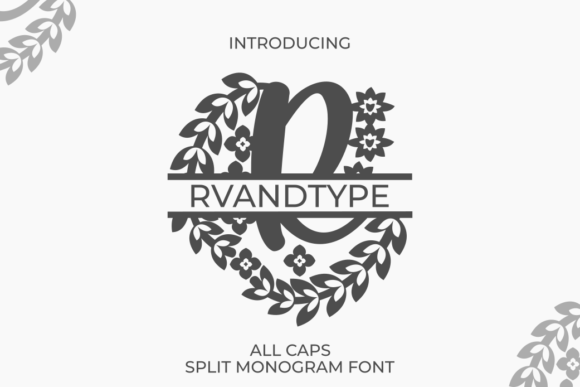
Elevate Your Designs with the Elegance of All Caps Split Monogram Font
In the world of crafting and design, the right typography can make all the difference. It’s not just about conveying a message; it’s about doing so with style and personality. This is where the All Caps Split Monogram Font comes into play. A stylish decorative font, it is perfect for crafters and designers looking to add a touch of elegance and sophistication to their projects. Whether you’re printing on shirts, creating invites, designing cards, making gift cards, or crafting gift tags, this font is sure to enhance your designs with its authentic and realistic feel.
What is All Caps Split Monogram Font?
The All Caps Split Monogram Font is a unique typeface designed specifically for decorative purposes. As the name suggests, it’s characterized by its split monogram style, which gives it a distinctive and eye-catching appearance. This font is exclusively in all caps, ensuring that your texts or monograms stand out with a commanding presence. Its design is carefully crafted to mimic the look of professionally embroidered or stamped monograms, making it an excellent choice for craft products that aim to offer a personal touch.
Versatility in Crafting and Design
One of the key advantages of the All Caps Split Monogram Font is its versatility. It can be seamlessly integrated into a wide range of crafting and design projects. Here are some of the ways you can utilize this stylish font:
- Shirts and Apparel: Add a personalized touch to t-shirts, hoodies, and other apparel items. The font’s clear and stylish design ensures that it looks great whether you’re printing or sublimating.
- Invitations and Cards: Make your invitations, greeting cards, and thank you cards stand out with elegant monograms. It’s a great way to add a personal touch to special occasions.
- Gift Cards and Tags: Enhance your gift cards and tags with beautifully designed monograms. This not only adds a personal touch but also makes the gifts more visually appealing.
Why Choose All Caps Split Monogram Font?
There are several reasons why the All Caps Split Monogram Font stands out from the myriad of fonts available for crafters and designers:
- Authentic Look: The font boasts an authentic look that closely resembles traditional monogramming techniques. This lends a realistic and high-quality feel to your designs.
- Ease of Use: Designed with user-friendliness in mind, this font can be easily incorporated into your projects, regardless of your design experience.
- Customization: The All Caps Split Monogram Font allows for a high degree of customization. You can use it to create monograms in various sizes and colors, ensuring that they fit perfectly with your project’s theme.
- Time-Saving: With this font, you can significantly reduce the time spent on designing monograms from scratch. This allows you to focus on other creative aspects of your project.
Tips for Using All Caps Split Monogram Font
To get the most out of the All Caps Split Monogram Font, consider the following tips:
- Pair with Complementary Fonts: When using the All Caps Split Monogram Font alongside other fonts, choose ones that complement its style. Simple, sans-serif fonts often work well for contrast.
- Play with Colors: Don’t be afraid to experiment with different colors. The font’s design looks great in both metallic and solid colors, offering you plenty of creative freedom.
- Consider Size and Placement: The size and placement of your monogram can significantly impact the overall look of your design. Make sure it’s proportionate to the rest of your design elements.
| Font Name | All Caps Split Monogram Font |
| Author | Rvandtype |
The All Caps Split Monogram Font is a valuable addition to any crafter’s or designer’s toolkit. Its elegant design, versatility, and ease of use make it an excellent choice for a wide range of projects. By incorporating this stylish decorative font into your designs, you can add a personal and realistic touch that sets your work apart. Whether you’re a seasoned professional or just starting out, the All Caps Split Monogram Font is sure to elevate your designs to new heights of creativity and sophistication.